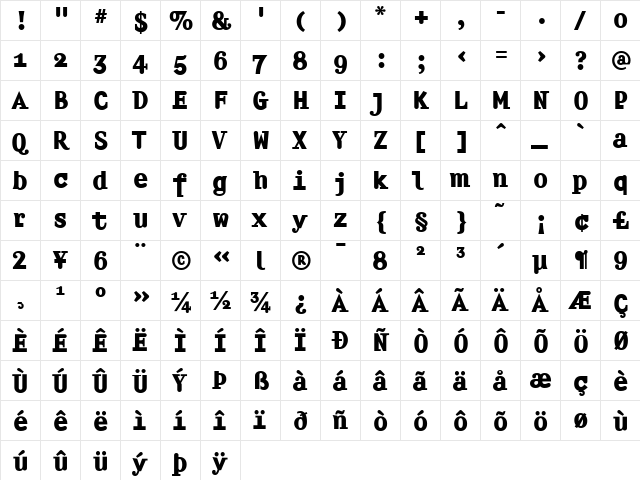
AmplifierB Regular
Design Context for AmplifierB Typeface
AmplifierB takes a measured approach to typography — its balanced proportions and neutral character make it a reliable workhorse for both digital and print work.